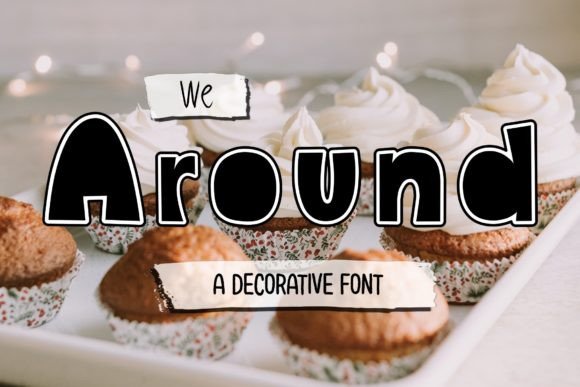
**Introducing We Around Font: The Epitome of Elegance for Your Digital Creations**
Prepare to be captivated by the alluring embrace of We Around Font, the decorative masterpiece that will ignite your imagination and elevate your designs to new heights. Its graceful curves and elegant strokes exude an air of sophistication that will leave an unforgettable impression on any digital canvas.
Crafted with meticulous precision by the renowned 18CC FONTs, We Around embodies the essence of artistry. Its versatility knows no bounds, seamlessly adapting to a myriad of creative endeavors. Whether you're looking to captivate your audience with captivating logos, build a cohesive brand identity, or add a touch of personal flair to your social media presence, this font is your steadfast companion.
But We Around is more than just a collection of pixels; it's an invitation to unleash your boundless creativity. Its decorative charm lends itself perfectly to DIY projects, injecting a touch of whimsy and individuality into every handmade masterpiece. From intricate paper crafts to personalized home décor, We Around empowers you to transform ordinary objects into extraordinary works of art.